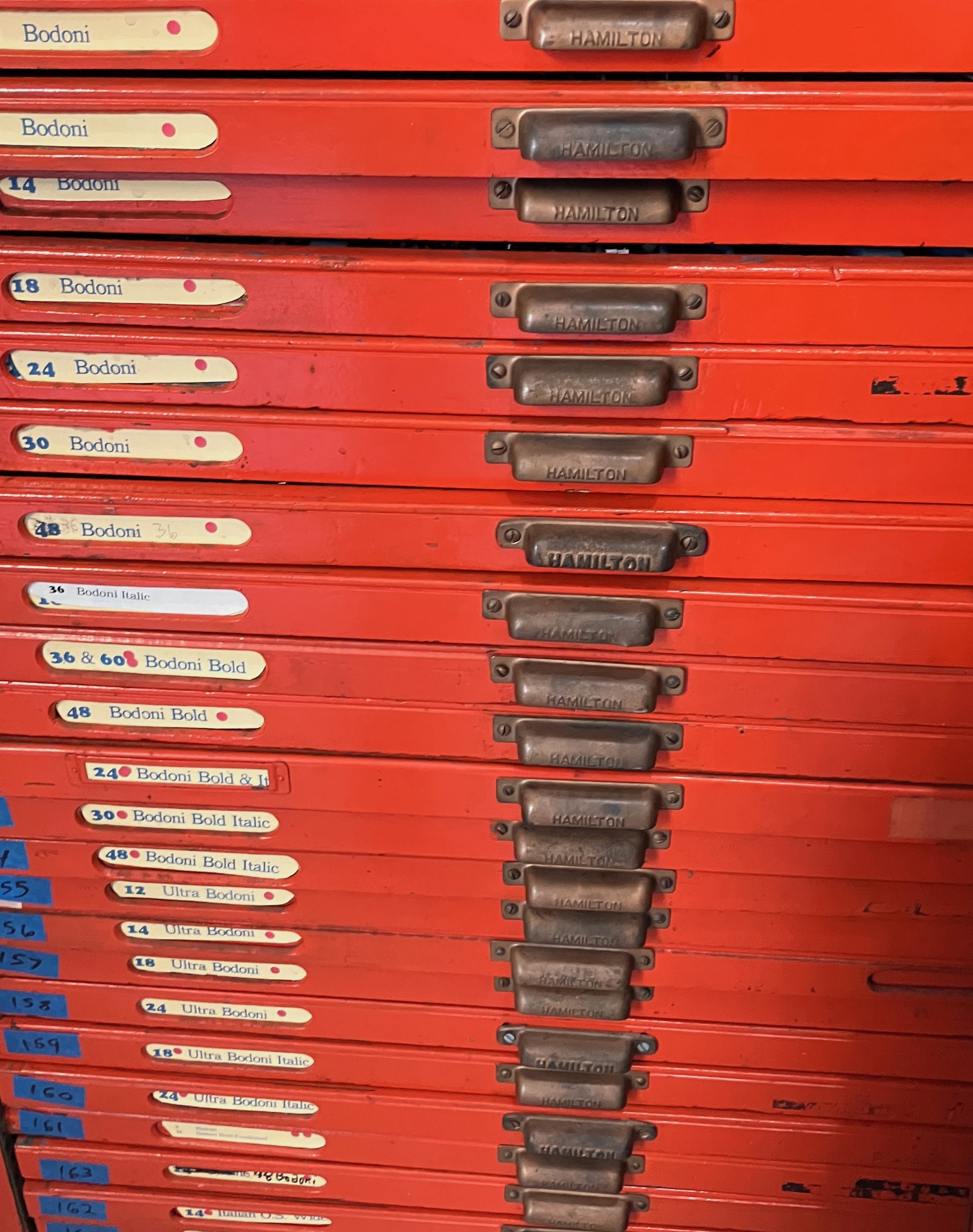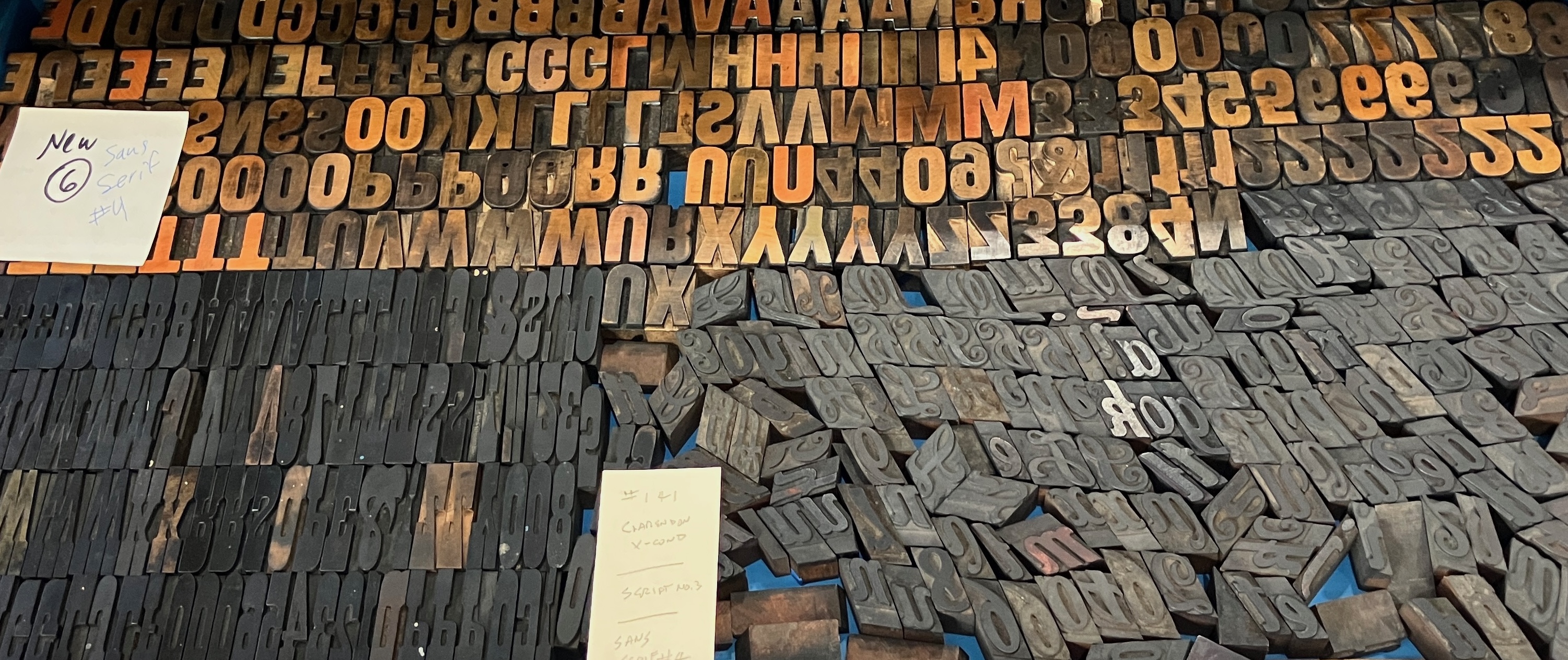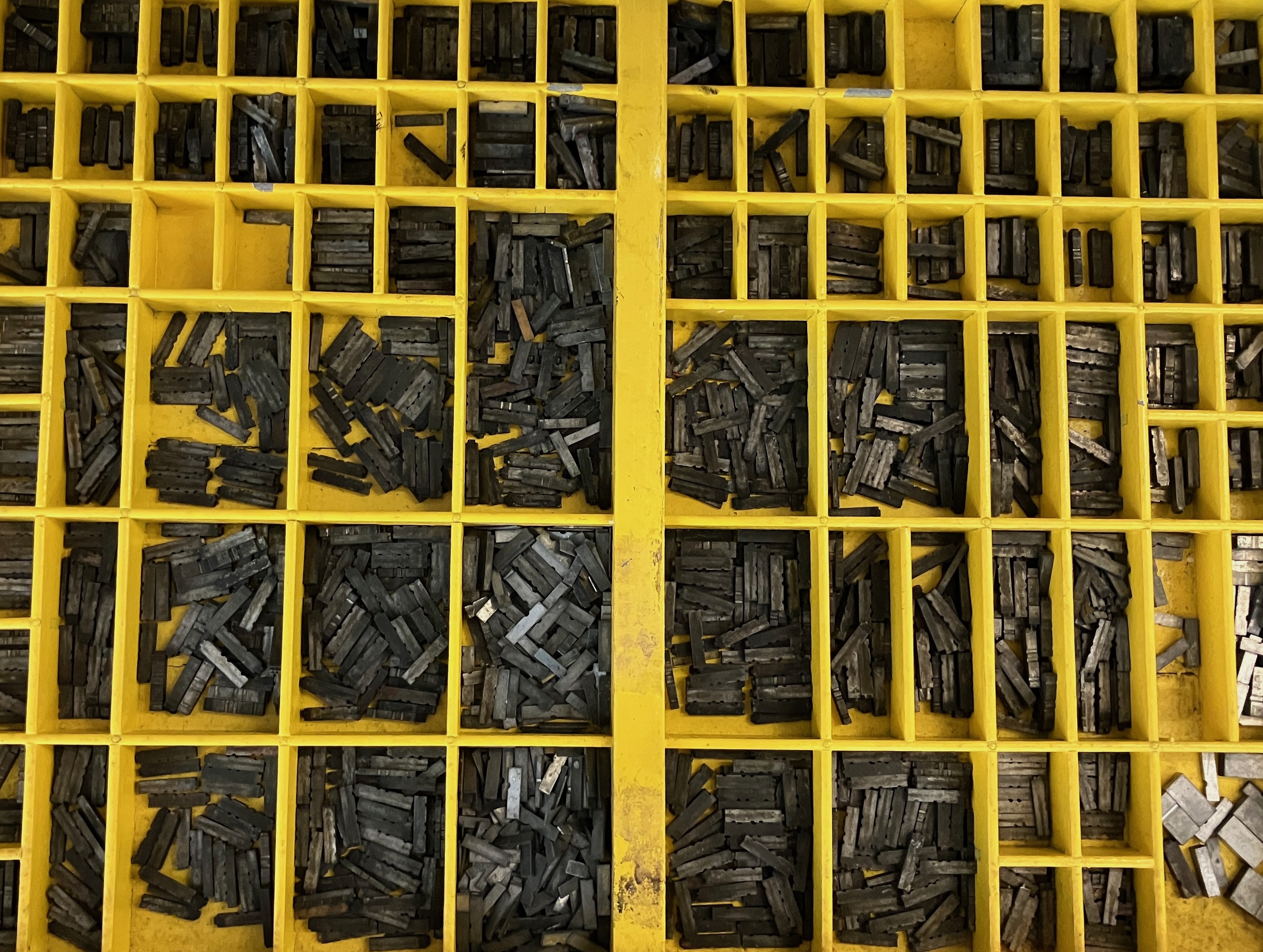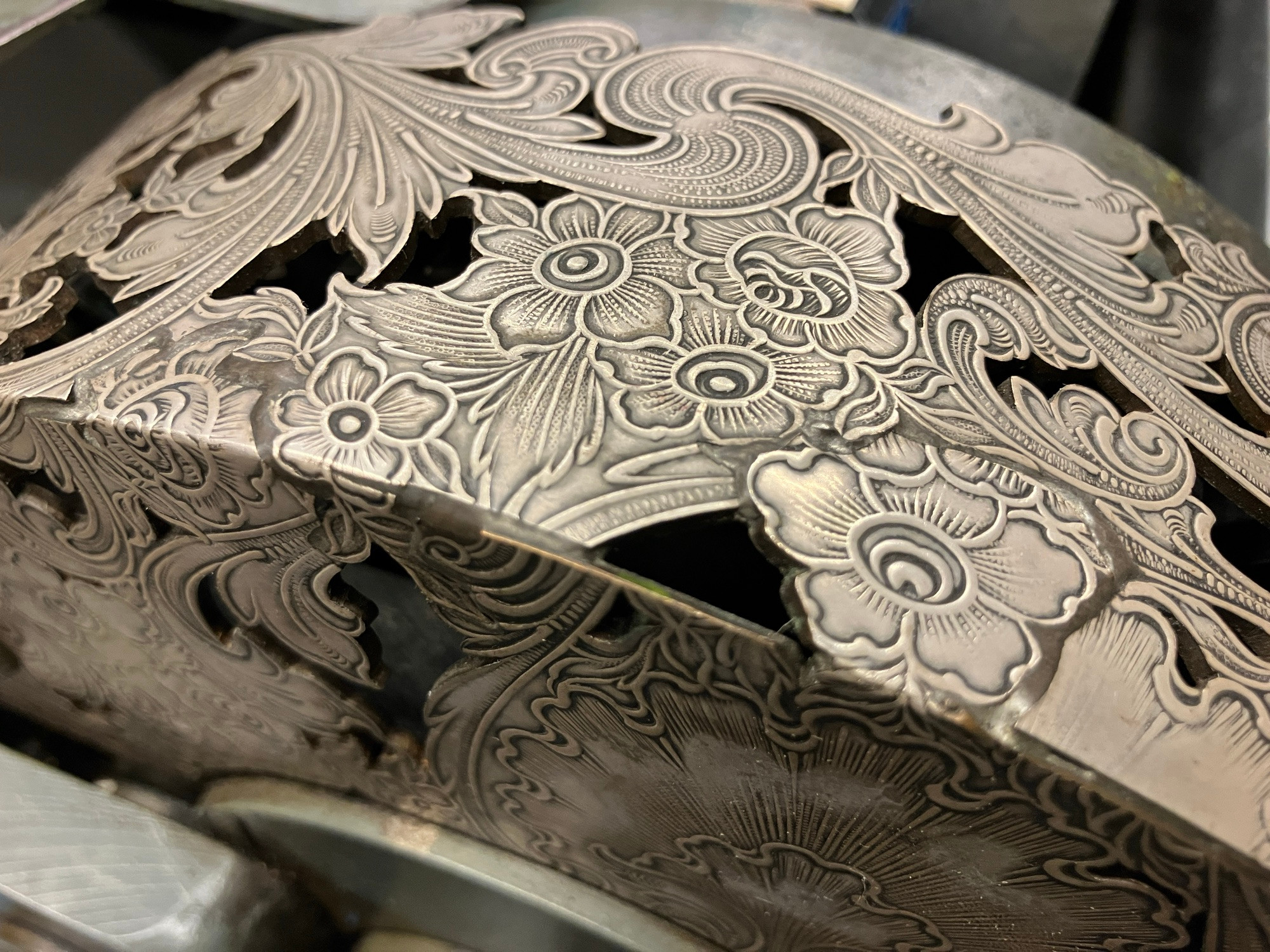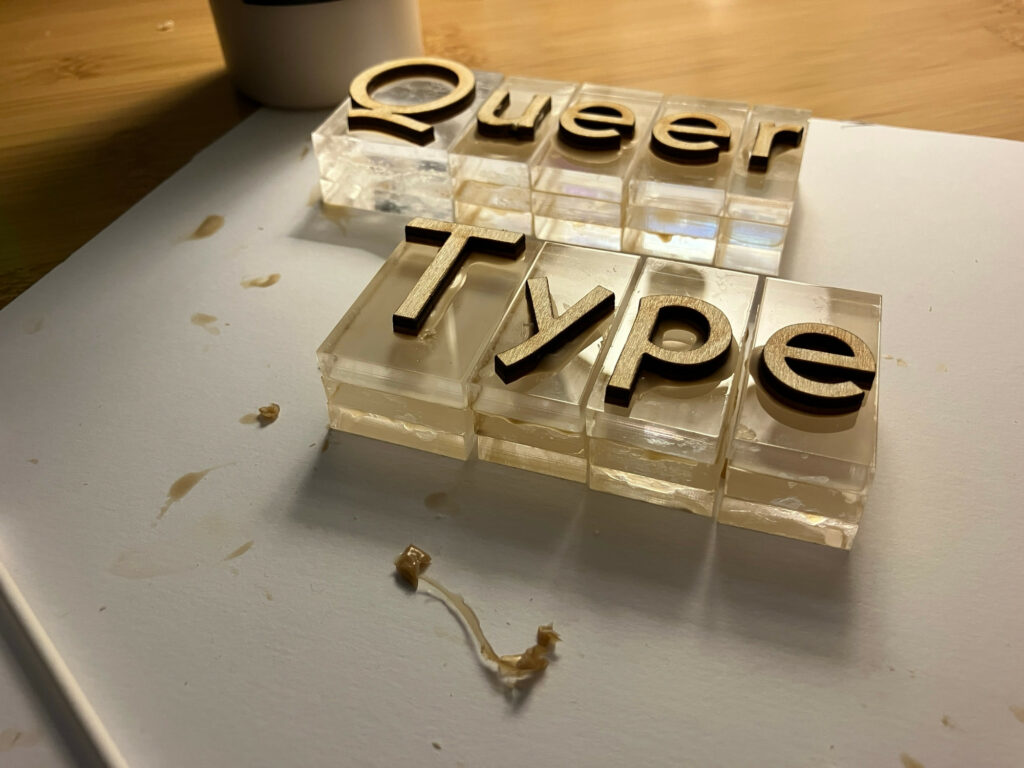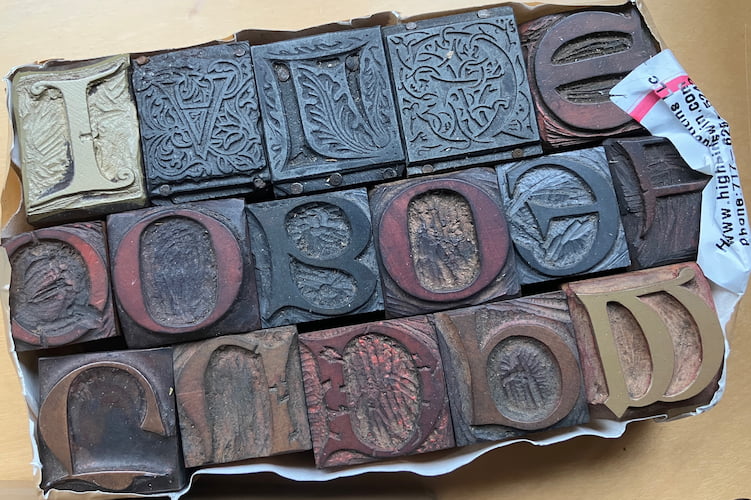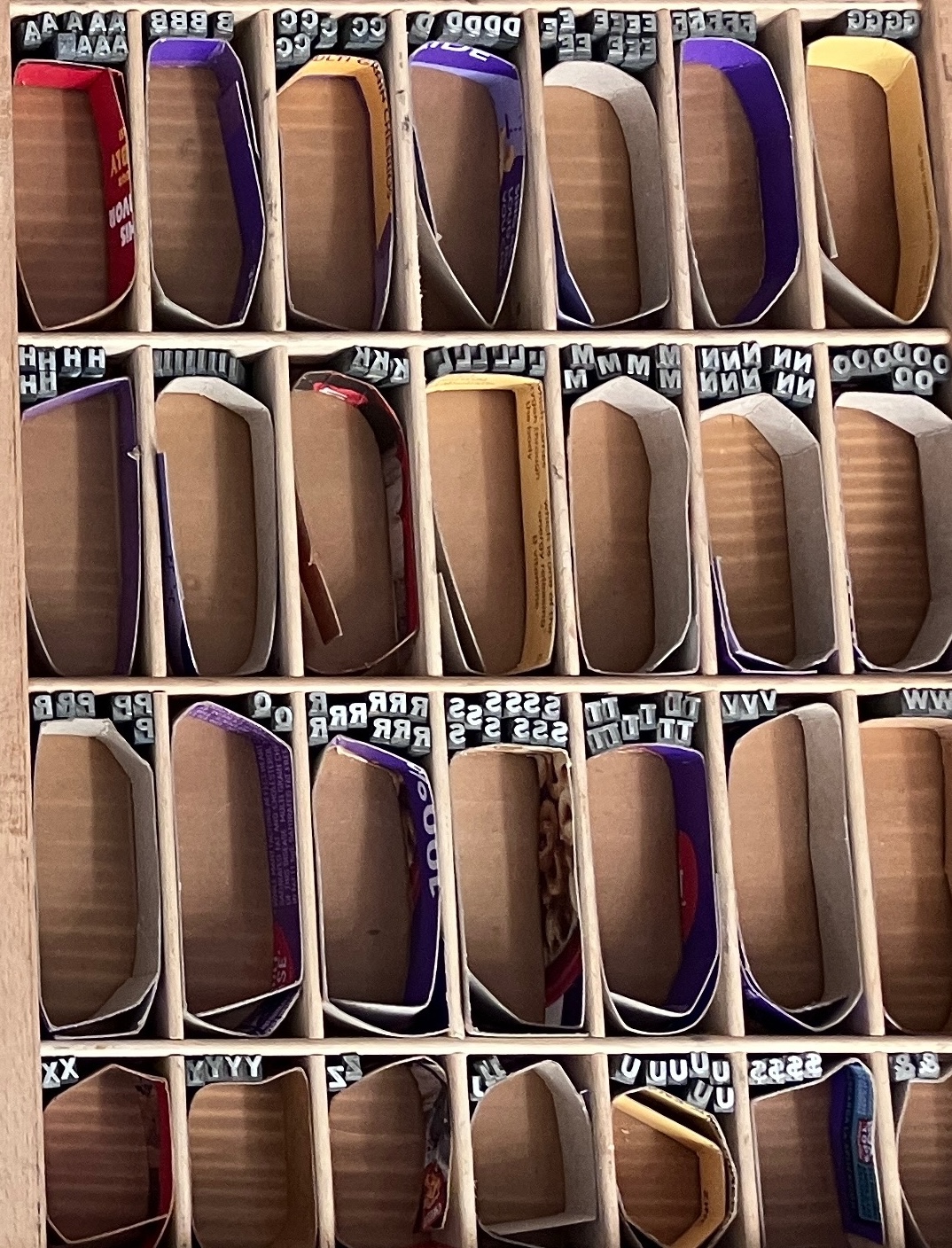
Movable Feast
Letterpress type collections: database, gallery, dataviz, puns
The Movable Feast Project
A Movable Feast is a digital humanities project providing public interfaces to photo galleries and relational databases of physical letterpress items, especially type, with a focus on:
The project builds on existing and extended printshop "what type do we have & where can I find it?" lists, toward adding & improving:
Red Bodoni type specimen from Virginia Book Arts collection
Mixed wood type from Virginia Book Arts collection
Type case with yellow-topped letters from Virginia Book Arts
One of the largest East Coast public type collections
Virginia Book Arts
Previously the Virginia Center for the Book's Book Arts Program, the Virginia Book Arts' (VBA) type collection is the largest public collection of movable type in the mid-Atlantic region.
Amanda Wyatt Visconti and Josef Beery captured photos of every open typecase, a top-down view of all the type in the collection, during a short-notice period when it looked like the type would leave Charlottesville. Descriptive, evaluative, and historical details for the type are also included; the VBA type inventory/database/website by Amanda Wyatt Visconti was built on past inventory creation and maintenance work by Kevin McFadden, Garrett Queen, Kristin Adolfson, Josef Beery, Amanda Wyatt Visconti, Richard Cappuccio, and other past and present VBA members.
Overview of Virginia Book Arts type collection Overview of Virginia Book Arts type collection
Virginia Book Arts collection
VBA's collection consists of 15 full type cabinets; a large four-column galley organizer where each galley contains multiple new, unopened foundry type; and a large, ongoing loan of larger-size wood type from a past Italian type foundry awaiting maintenance. Much of the type in VBA's type cabinets is represented by well-designed specimen prints reproduced in the Speaking in Faces volume.
Metal type work from Penland's Vandercook press
Letterpress print from Penland School of Craft
Universal disc on Vandercook at Penland
Type that's been used by many of your fave printers <3
Penland School of Craft: Letterpress Type Collection
Penland School of Craft is one of the oldest craft schools in the U.S., starting in 1929 as a weaving school and expanding over the decades to plethora of methods and studios. Penland's Letterpress Studio has hosted established artists as teachers, students, resident artists, and more over multiple decades.
I volunteered to help with type collection organization, documentation, and this online project starting with my Winter 2026 artist residency & fellowship at Penland, and continuing doing my Summer 2026 letterpress class. My scan and transcription of the current binder list, and photos of the type and equipment collection in the Letterpress Studio accompany my web design and database creation work. The letterpress typecase labels (new in July 2026!) will aid both the database, and in-person printers' ability to easily log where they took their type from. The "Home for Beloved Broken Wood Type" case I created showcases & protects Penland's still-beautiful and usable broken sorts, so they're seen as potentials for art projects instead of the trash bin (see my Broken Wood Type site for more on that project).
The current database builds on former Letterpress Studio Coordinator Adam Leestma's documentation of the wood type collection in photo and list; and on my scan and transcription of the current paper type list that was created by Sean P. Morrisey and Jay Fox. Current Letterpress Studio Coordinator Kristen Lyle's leadership and work maintaining a thriving studio contributes to the project as well in innumerable ways.
Overview of Penland type collection Overview of Penland type collection
Penland's Letterpress Studio Movable Type Collection.
See Leslie Noell and Eileen Wallace's project printing the backs of some of Penland's Gothic wood type, for a neat exploration of the all-over beauty of used wood type.
Queer letterpress typography by Amanda Visconti
Capital letters from Visconti personal collection
Cardboard letterpress example by Amanda Visconti
🎶 i like! big! type! and i cannot lie! 🎶
Visconti collection
This is the type I've personally created or acquired (see my forthcoming free "My First Type" zine for advice on doing the same in as financially accessible a way as possible; time and community are your friends). I also include a separate section on the cuts (image printing blocks) and catchwords (whole words and sentences, rather than remixable letters) I've collected or crafted.
Overview of Visconti type collection Overview of Visconti type collection
• The full lowercase m gallery: one photo per case for every type collection, so you can see scale and style at a glance.
• Public-facing database interfaces for browsing and filtering all type by face, size, material, condition, and more
• History notes for individual typefaces, tracing acquisition stories and community use
• Print-proof photos showing what each face looks like in an actual print